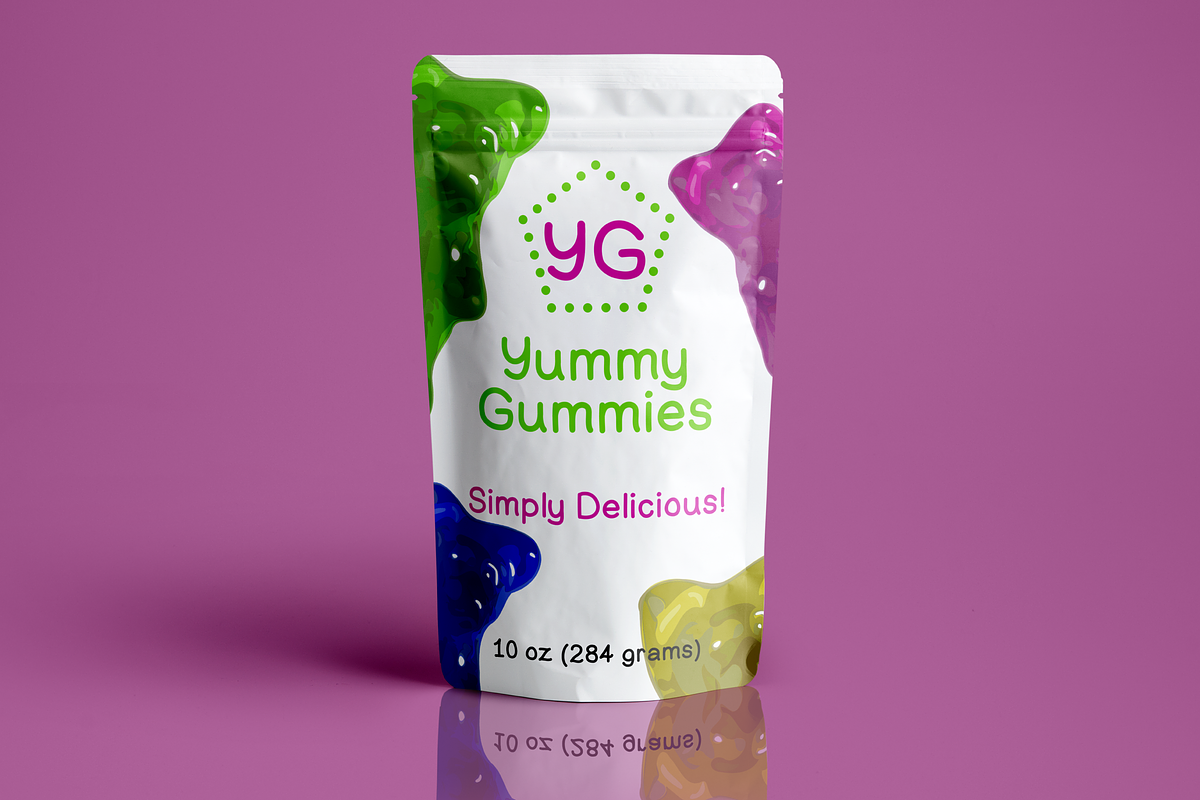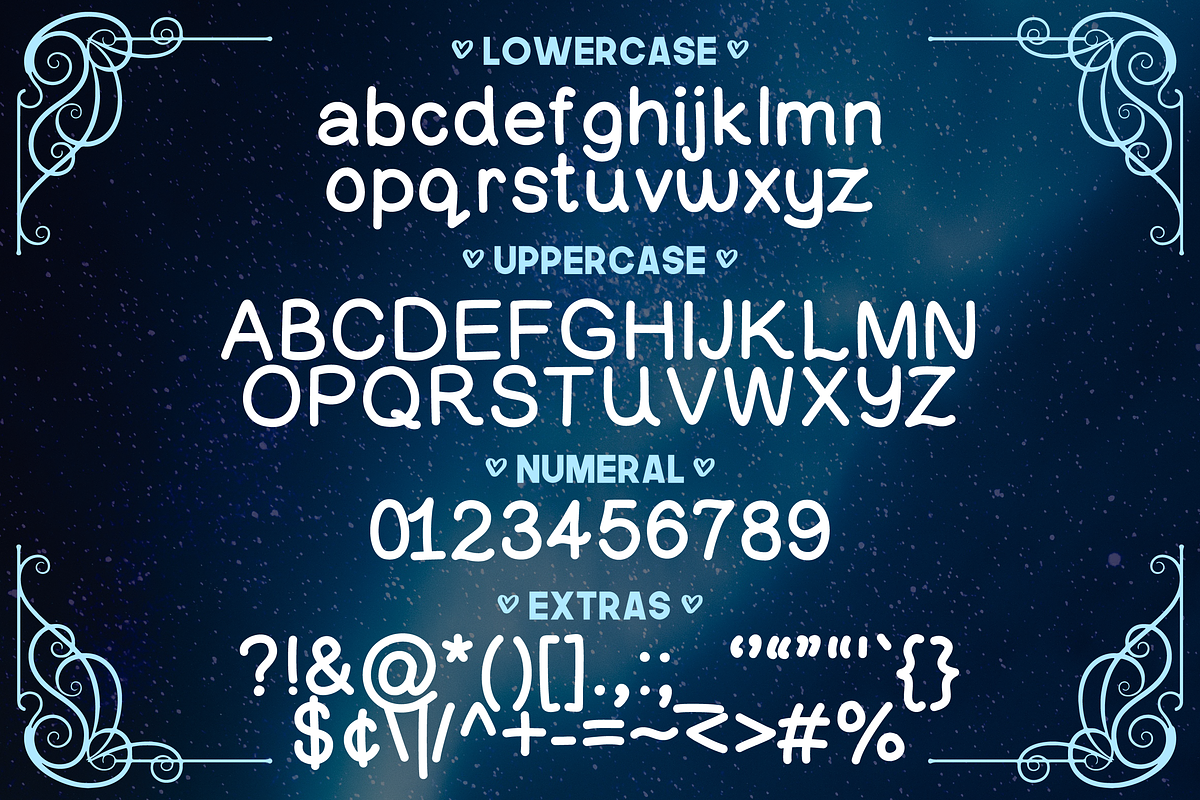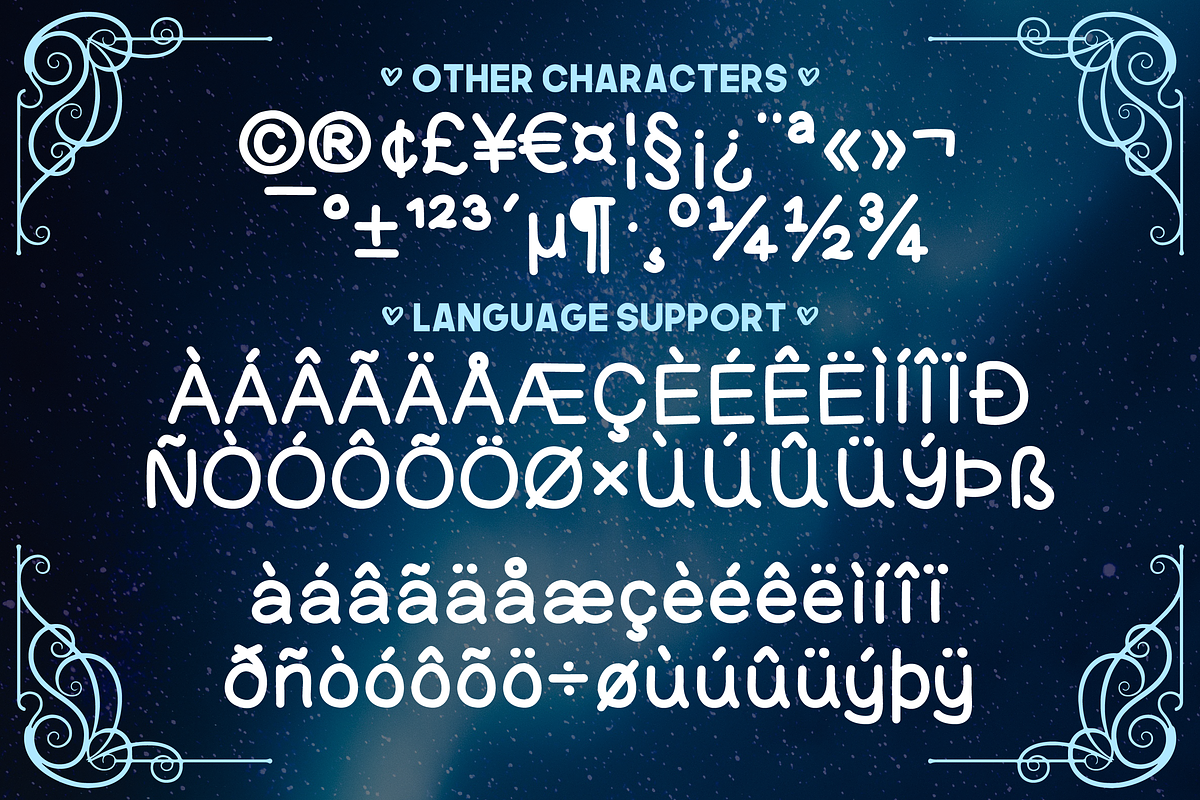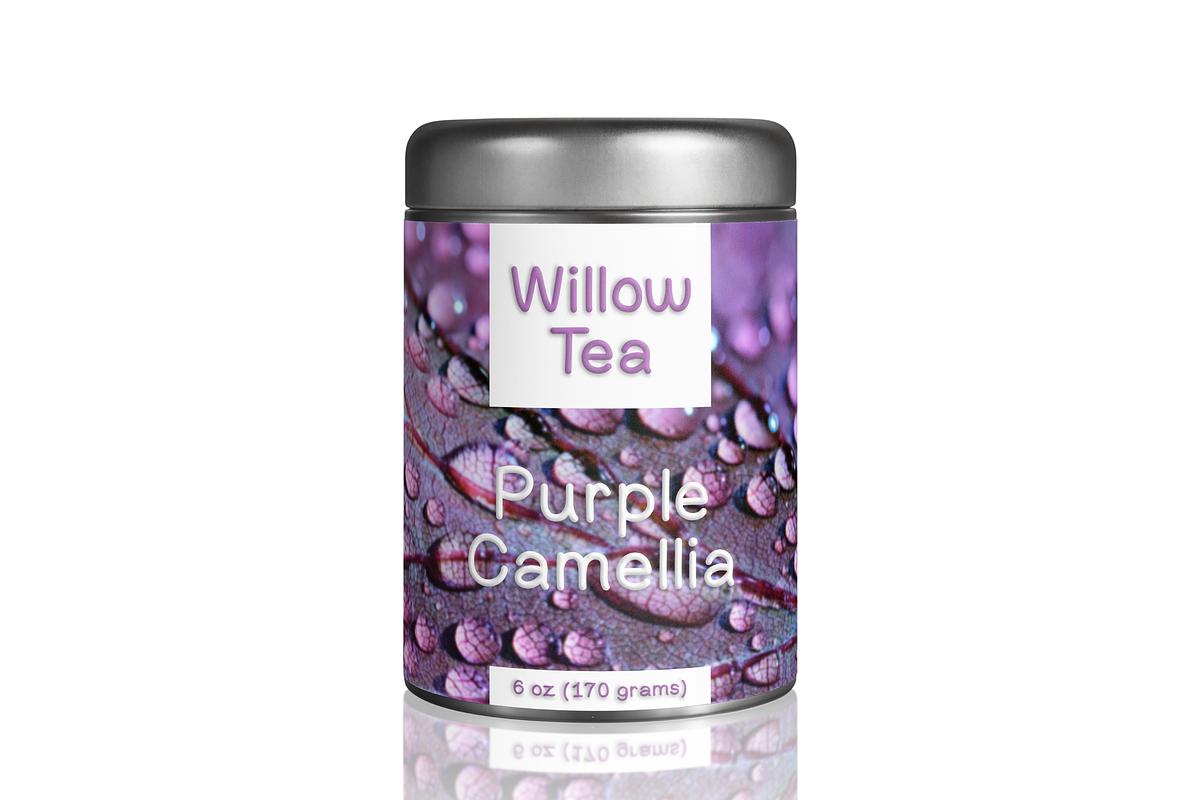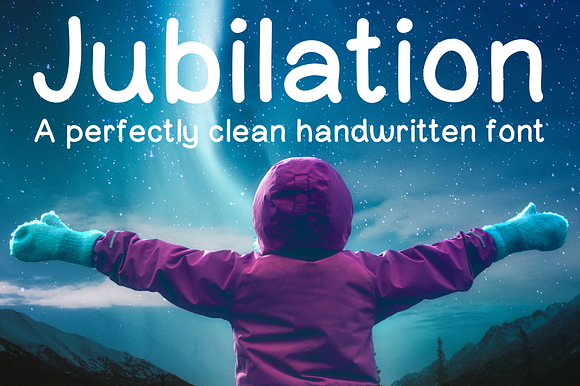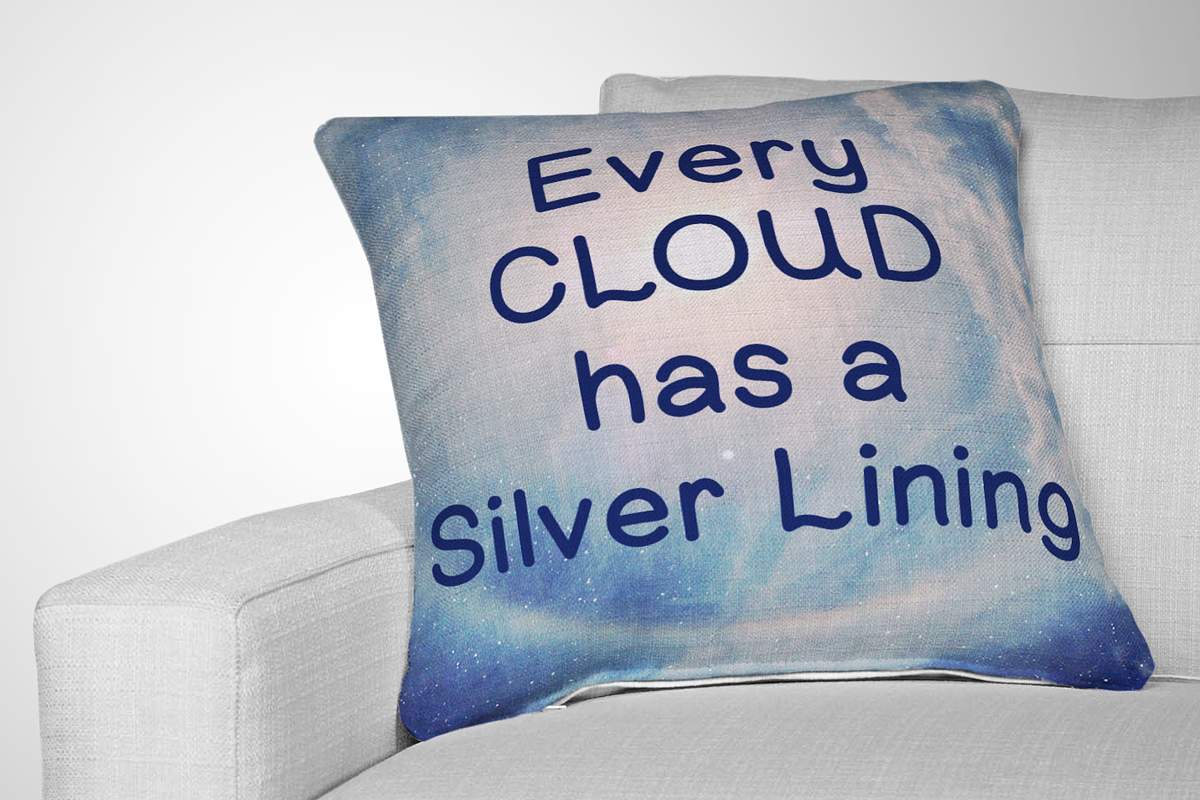
Jubilation is a handwritten sans-serif font. It is perfect for logos, headlines, and advertising. This sans-serif font features A-Z, a-z, 0-9, common symbols, and basic language support (please see listing photos for details)!